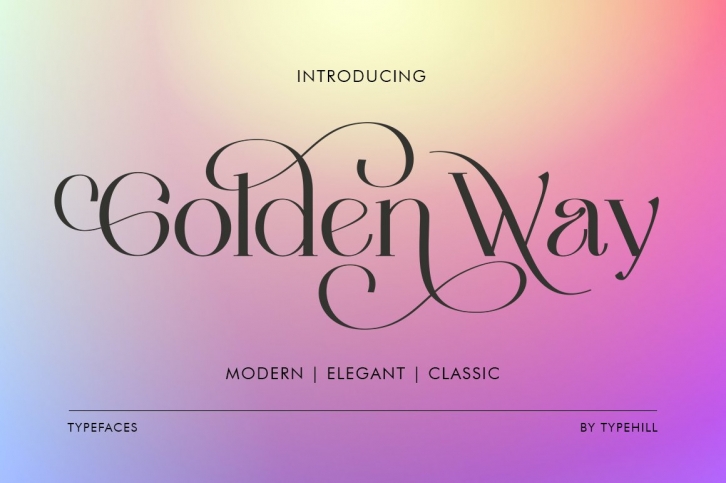
Golden Way Family is a beautiful font that was designed by Typehill. It's a great choice for designers and creatives who need such a font. It was released on June 4, 2022 and the file size is 6.19 MB. Golden Way Family may give a more youthful, expressive and casual look to your project. It is a very beautiful, refined, elegant, and high-quality font.